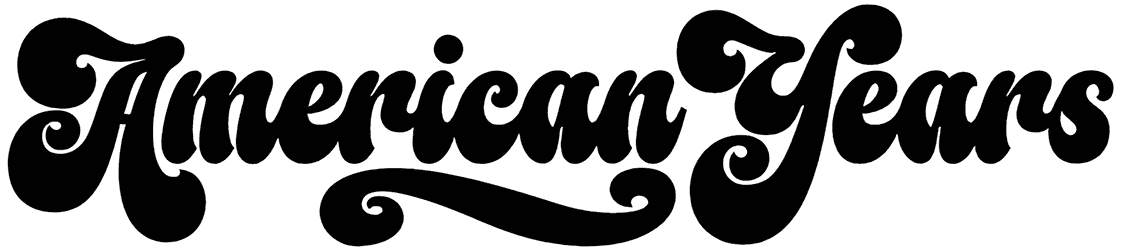
American Years Font
We should give you a heads-up about American Years, it’s gonna awaken a lot of nostalgia in your lettering, and one can already tell that it’ll be so awesome. Its groovy style is on another level, and you can take a good look at the past by simply laying eyes on this mischievous American font.
Looking just like the chocolate writing on the cakes, American Years lands so perfectly on your HBD banners, store opening posters, Christmas postcards, and so much more.
Like a vinyl, it’s nostalgic, authentic, and full of character.Use underscore _ after any word to make a swash.
Example: Retro_Use multiple underscores for a longer tail.